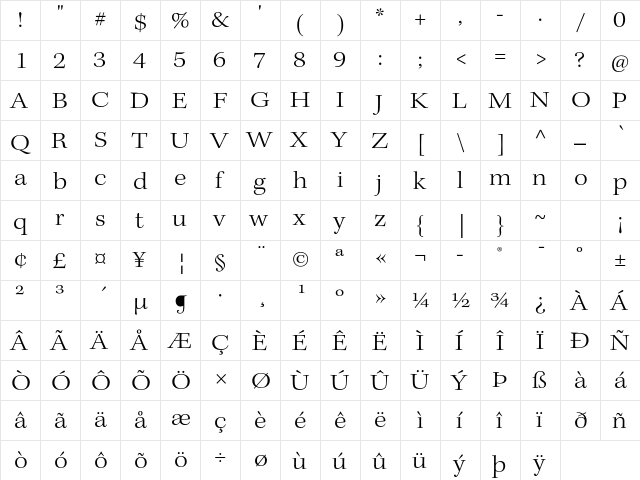
Kepler Std Light Extended Subhead Font Preview
Kepler Std Light Extended Subhead
Kepler Std Light Extended Subhead Font Details
| Style | Light Extended Subhead |
| Designer | Robert Slimbach |
Design Context for Kepler Std Typeface
Kepler Std is a composed and adaptable typeface that performs quietly and consistently across a wide range of design contexts. Its slender proportions lend an understated elegance to any composition.